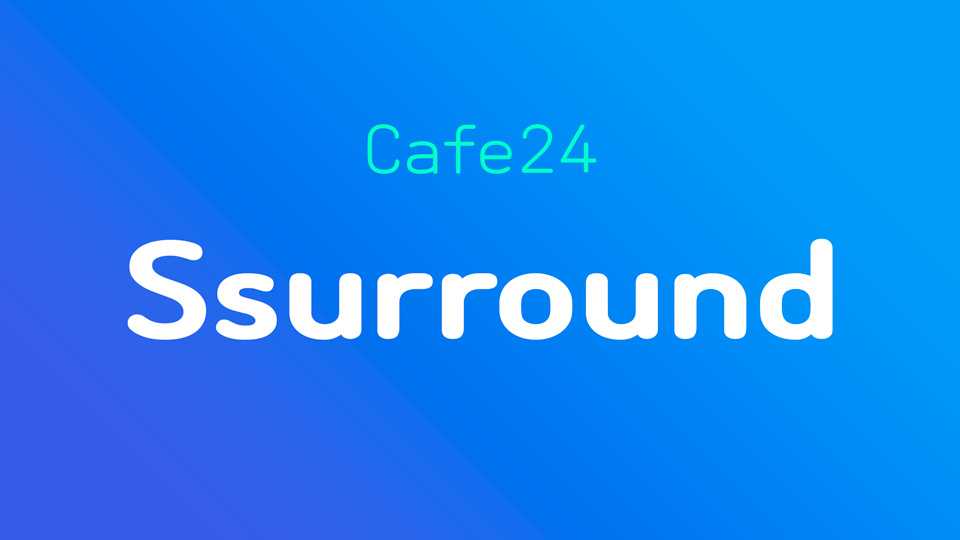
Download Ssurround typeface, a rounded font family with two weights designed with a simple geometric structure. Its clean yet friendly style lends itself well to brand building.
Designer: Cafe24